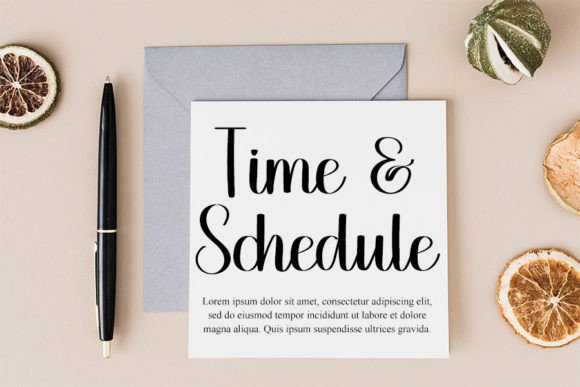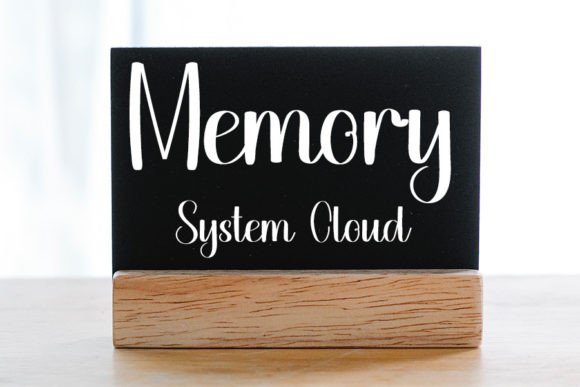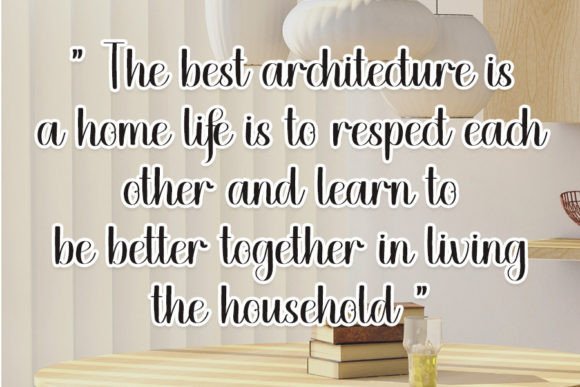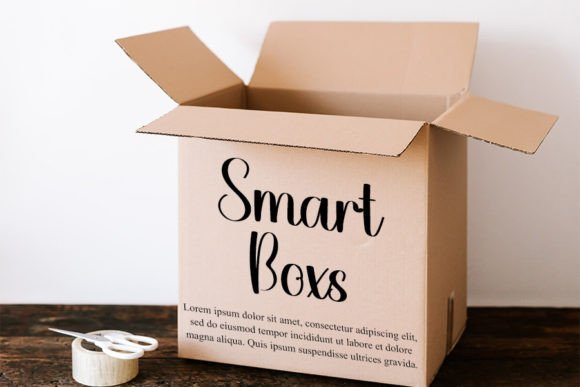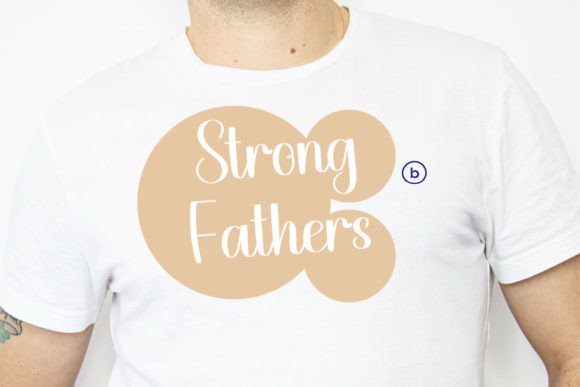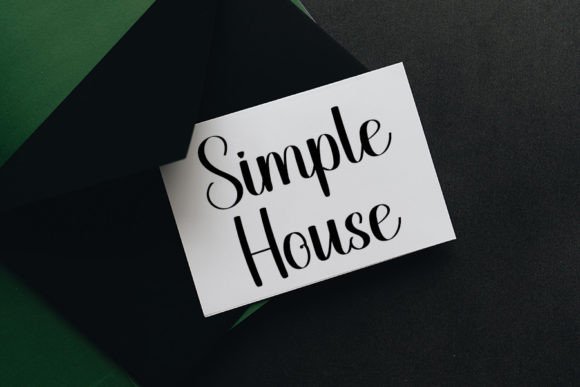
Minihouse Font
About Minihouse Font
Minihouse is a script font that effortlessly blends casual charm with elegant sophistication. Its versatile style makes it an ideal choice for a myriad of design applications, inviting you to infuse creativity into various projects. Whether you’re crafting exquisite wedding invitations, designing beautiful stationary art, creating eye-catching social media posts, or engaging in other creative endeavors, Minihouse adds a touch of grace to make your designs truly standout.
The font’s casual elegance is especially well-suited for wedding invitations, where it can set the tone for a stylish and romantic celebration. Minihouse brings a level of sophistication to the design, making each invitation a work of art that captures the essence of the special day.
In stationary art, Minihouse adds a touch of elegance and personality. Whether you’re designing letterheads, notecards, or other stationery items, the font’s script style lends a timeless and refined quality, enhancing the overall visual appeal of your written communications.
For social media posts, Minihouse’s versatile style comes to life, infusing a sense of elegance into your visual content. Whether you’re sharing quotes, announcements, or creative content, the font’s script design enhances the overall aesthetic, making your posts more captivating.
Minihouse’s adaptability extends beyond these examples, allowing you to explore its potential in various design contexts. Its balance of casual and elegant elements makes it a versatile tool for designers seeking to add a touch of sophistication to their projects.
In summary, Minihouse is more than just a font; it’s a creative asset that inspires you to create designs with a touch of elegance. Its casual yet refined script style makes it suitable for a range of projects, from wedding invitations to social media graphics. Fall in love with Minihouse’s versatility and let it be the key to crafting stunning and engaging designs across different mediums.